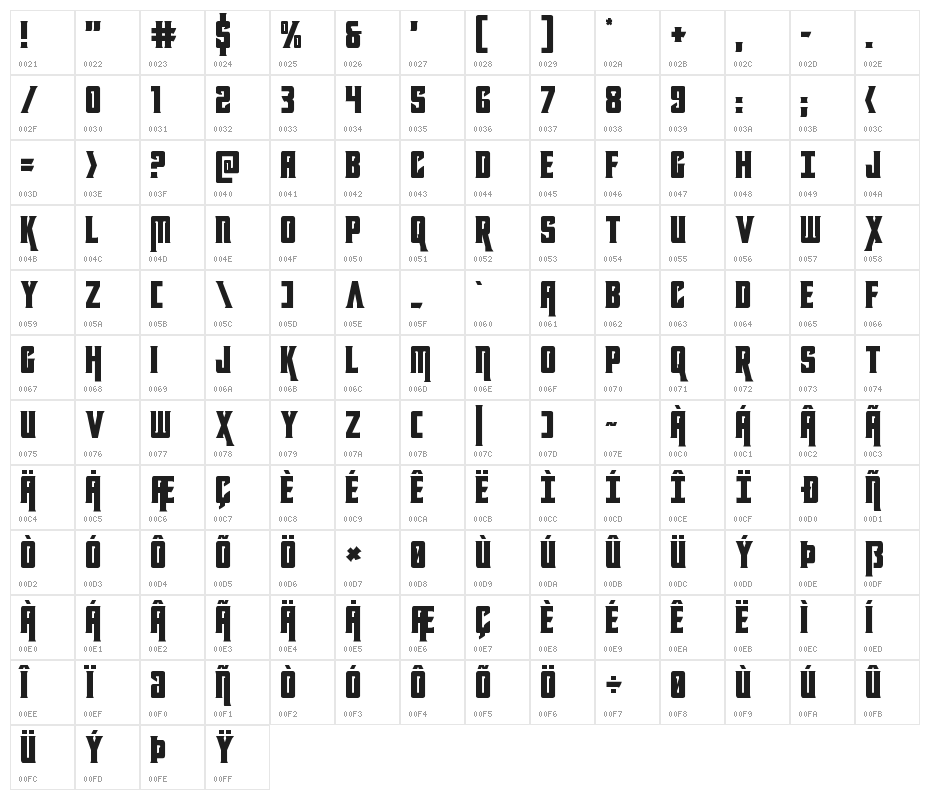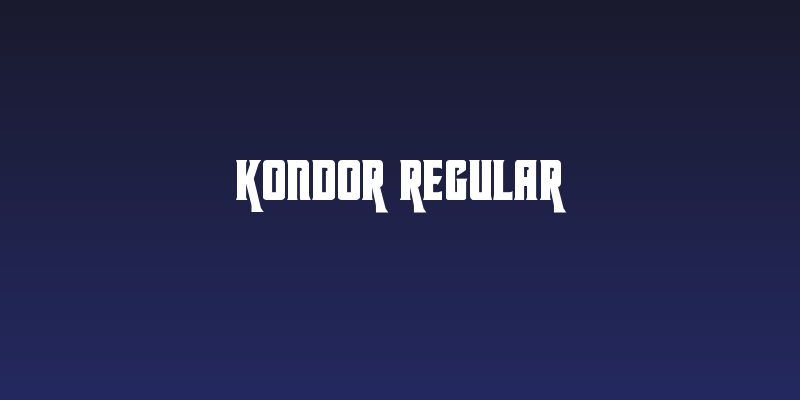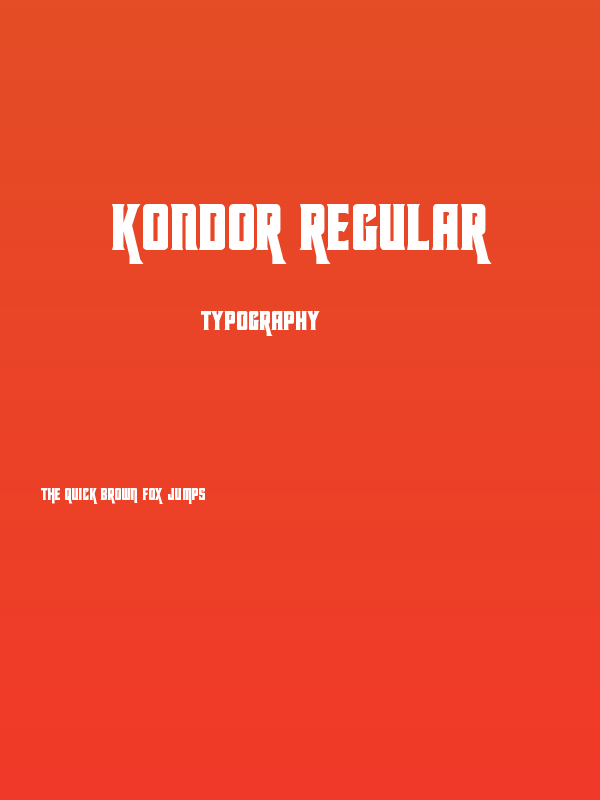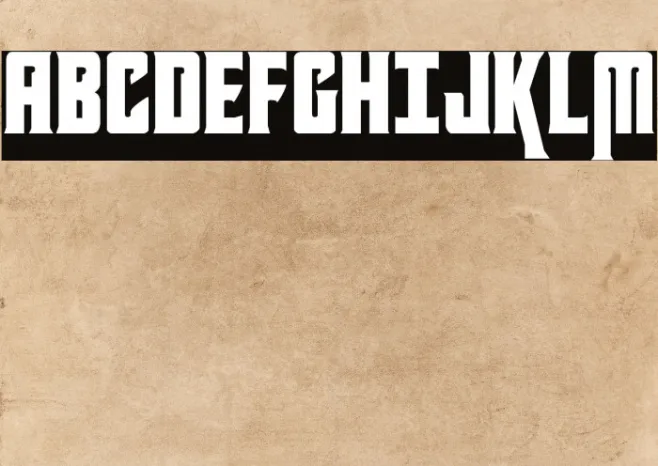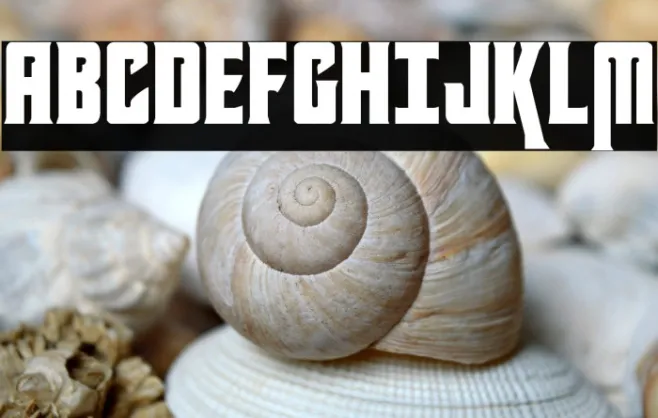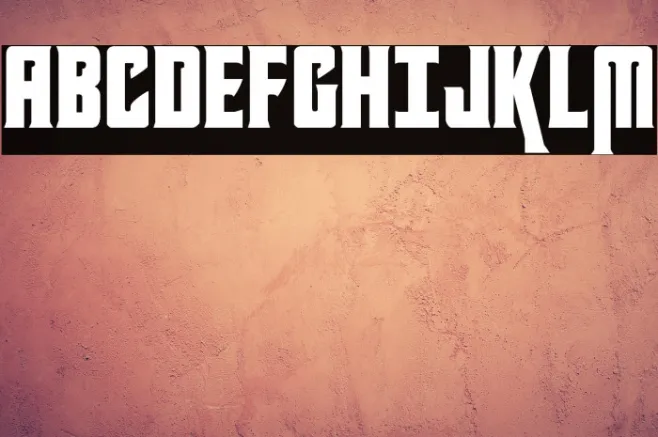
Kondor Regular Font
Kondor Regular Description
This font features a bold, geometric design with sharp angles and a strong presence. The uppercase letters are particularly striking, with a blocky, almost industrial feel. The characters are tightly spaced, enhancing the compact and robust appearance. The numbers and special characters maintain the same bold and angular style, ensuring consistency throughout. This font's unique design makes it ideal for attention-grabbing headlines and impactful graphic design projects.
| Proposed Projects | Ideal for posters, logos, branding materials, and any project requiring a bold, impactful typeface. |